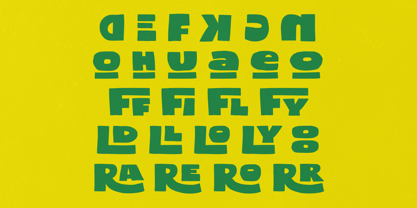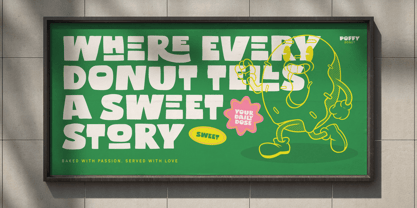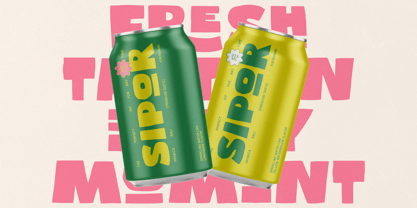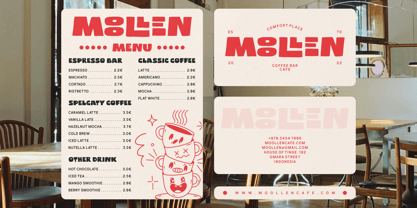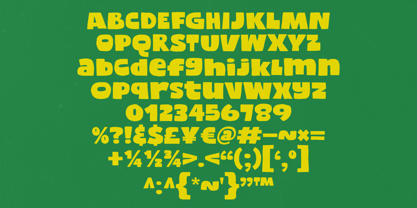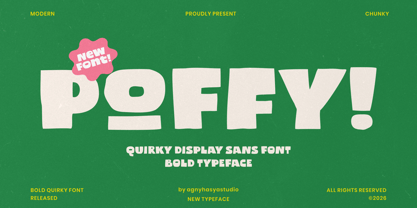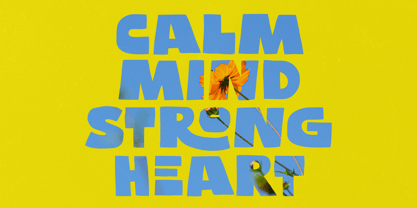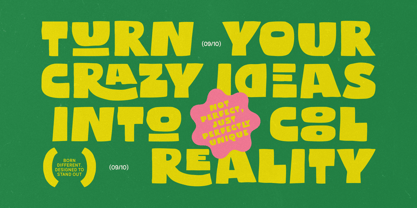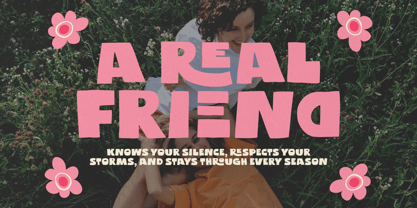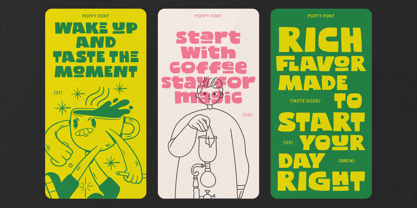
The Poffy Font Family was designed by Firman Maulana and published by Agny Hasya Studio. Poffy contains 1 styles. More about this family
Poffy is a chunky, quirky display sans-serif font with bold shapes and a playful character that brings warmth, fun, and personality to your designs. Inspired by playful shapes, friendly imperfections, and retro-modern aesthetics, Poffy feels confident without being loud and bold without being harsh. Every letter is crafted with soft curves and slightly irregular proportions, creating a lively rhythm that feels human, expressive, and approachable. Poffy shines in headlines, posters, packaging, signage, branding, social media, and creative projects that need a fun, friendly visual impact. Whether you’re designing for coffee shops, creative brands, playful editorials, or modern illustrations, Poffy helps your message feel cheerful, memorable, and full of character. With alternates and ligatures included, Poffy gives you the flexibility to create unique typographic expressions while maintaining a consistent playful tone. It’s not just a font, it’s a mood. Thanks for checking this out! If you have any questions or just want to say hi, don’t hesitate to send a message Warm regards, agnyhasyastudio
Designers: Firman Maulana
Foundry: Agny Hasya Studio
Poffy